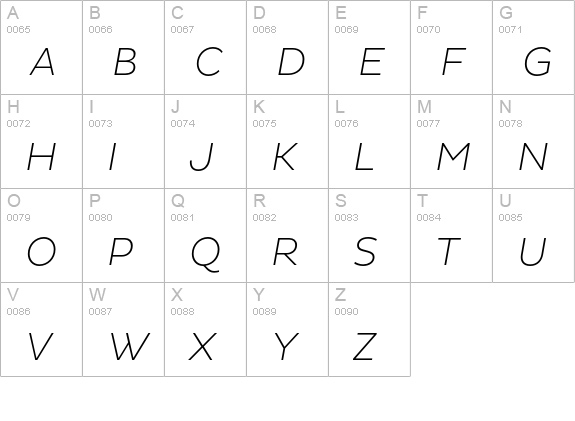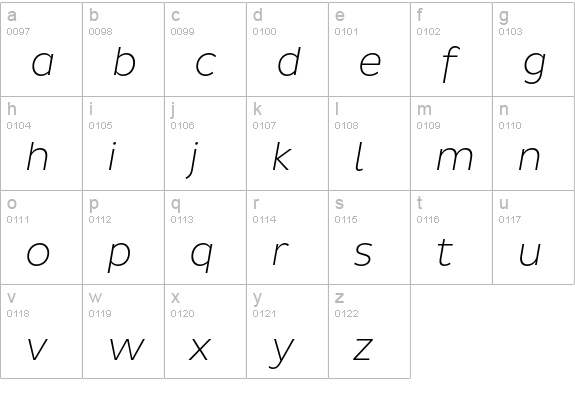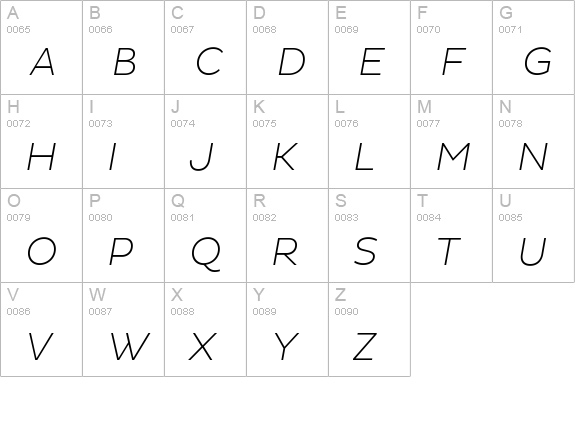
Pluto Sans ExtraLight Italic Font Details
Pluto Sans ExtraLight Italic is an airy, ultra-refined, italic variant in the Pluto typeface family \xE2\x80\x94 well suited to minimalist headlines and refined display use.
Pluto Sans ExtraLight Italic font is a sleek and elegant typeface that exudes sophistication and modernity. Its slender and slanted design adds a touch of style to any text, making it perfect for projects that require a refined and contemporary look. The delicate curves and subtle slant of the italicized characters give a sense of movement and fluidity to the text, making it a great choice for creative designs and editorial layouts. What makes Pluto Sans ExtraLight Italic font even more appealing is that it is available for free download at FontsMarket.com. This means that you can easily access and use this beautiful font in your projects without any cost. Whether you're working on a branding project, website design, or any other creative endeavor, Pluto Sans ExtraLight Italic font is a versatile and eye-catching choice that will elevate your work to the next level. Download it today and add a touch of elegance to your designs!